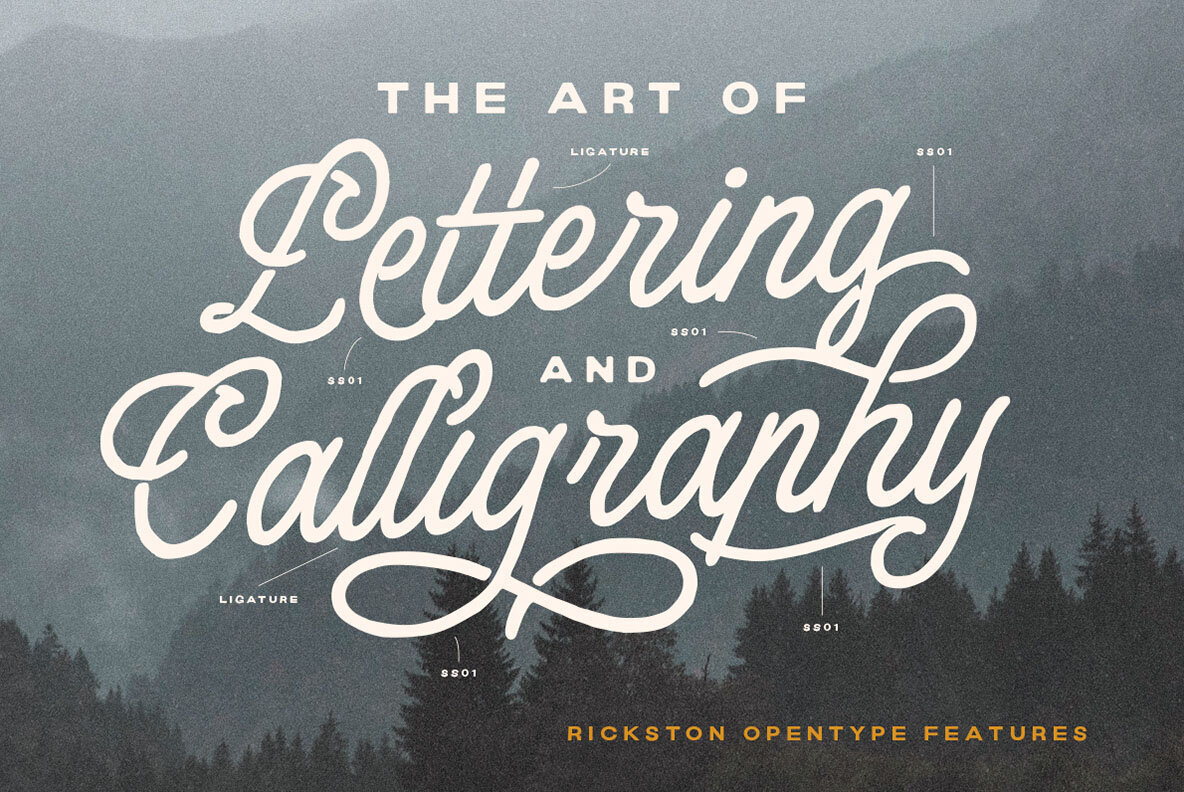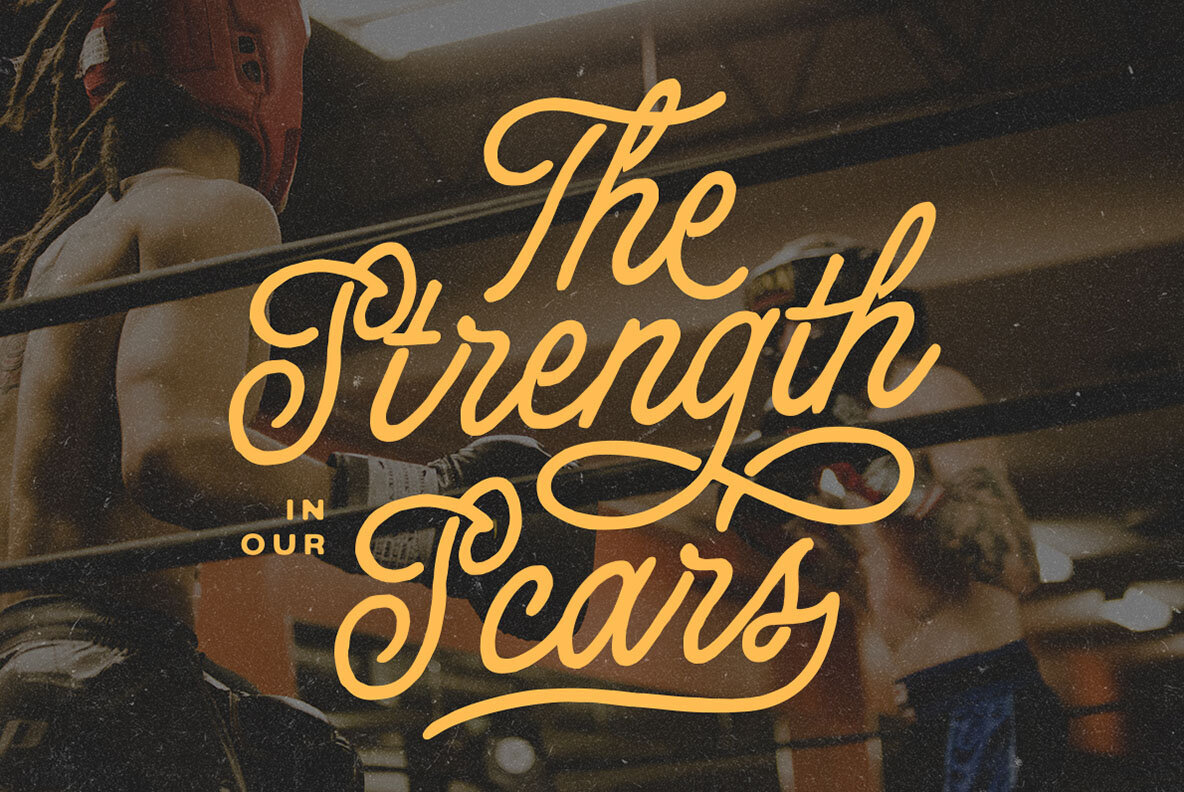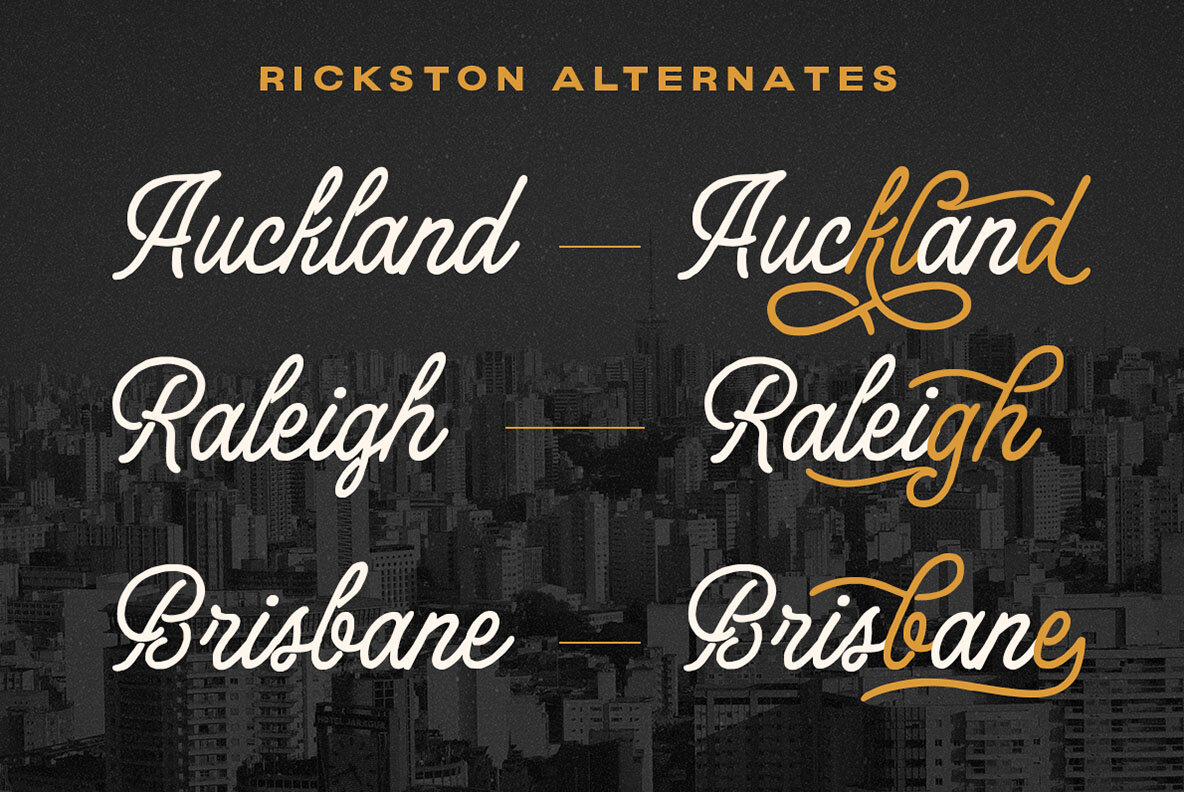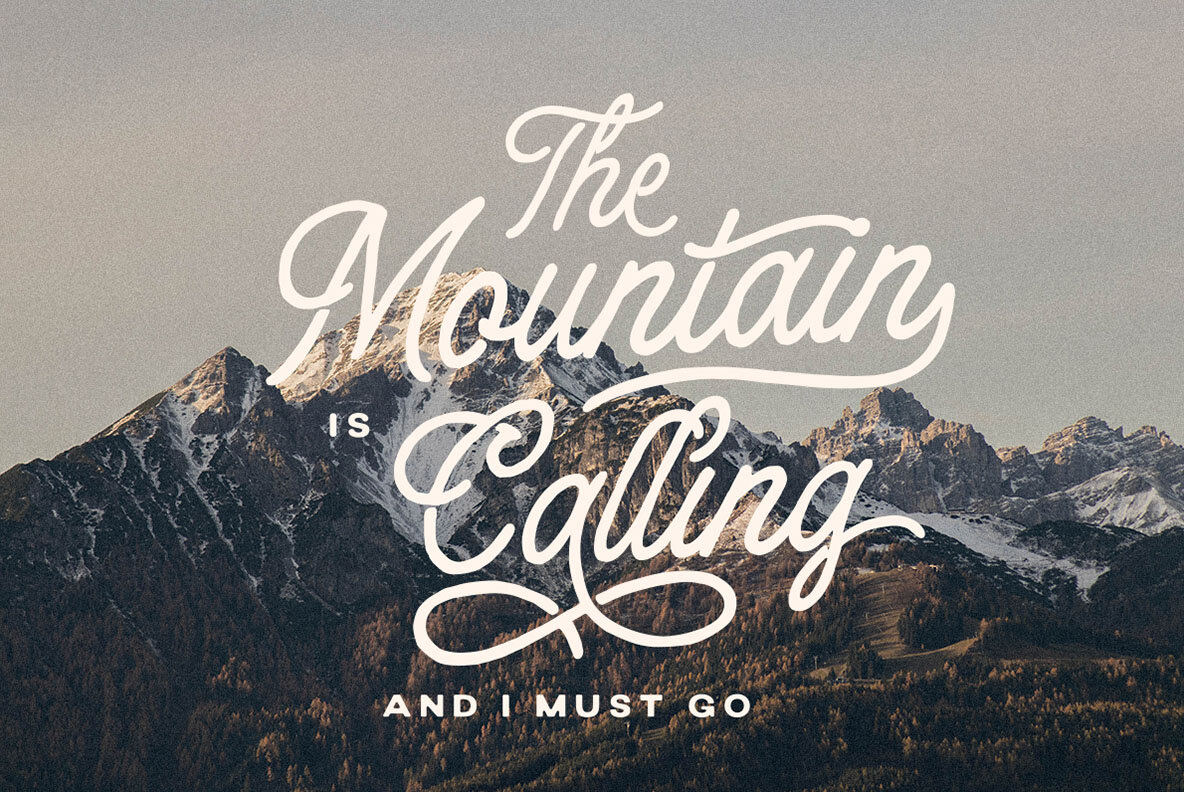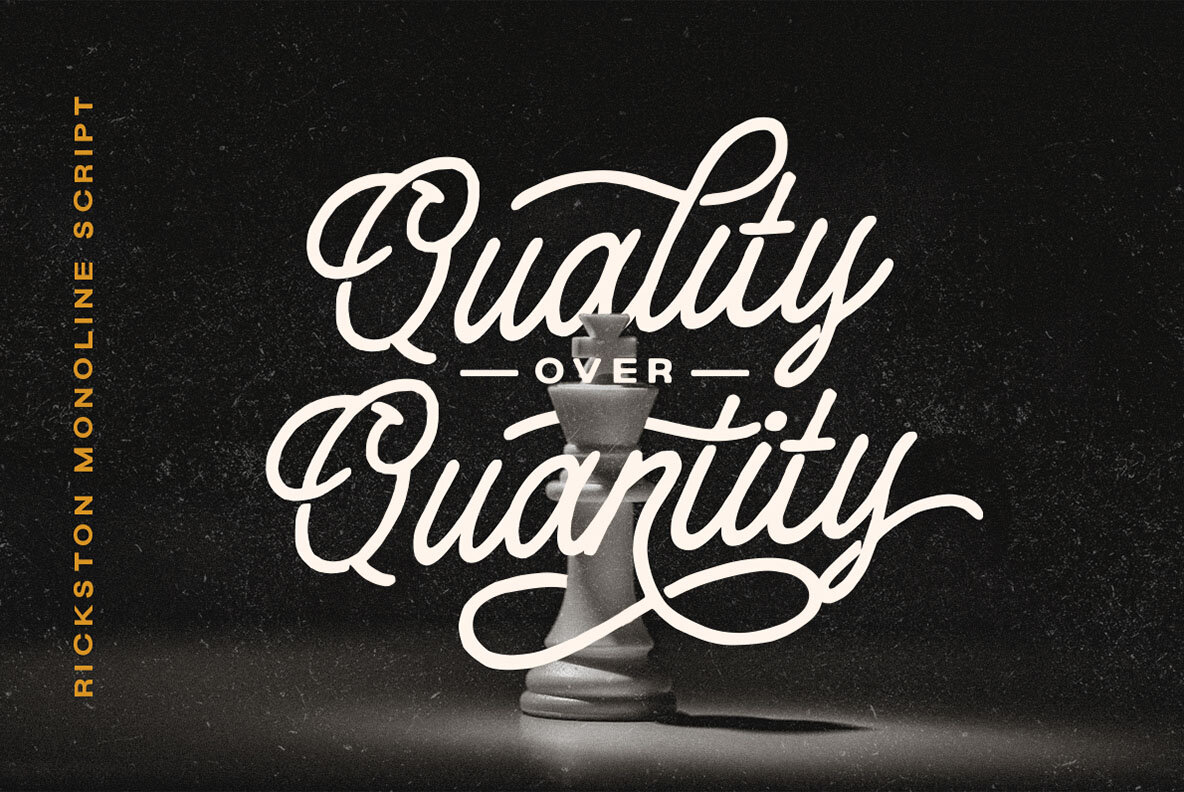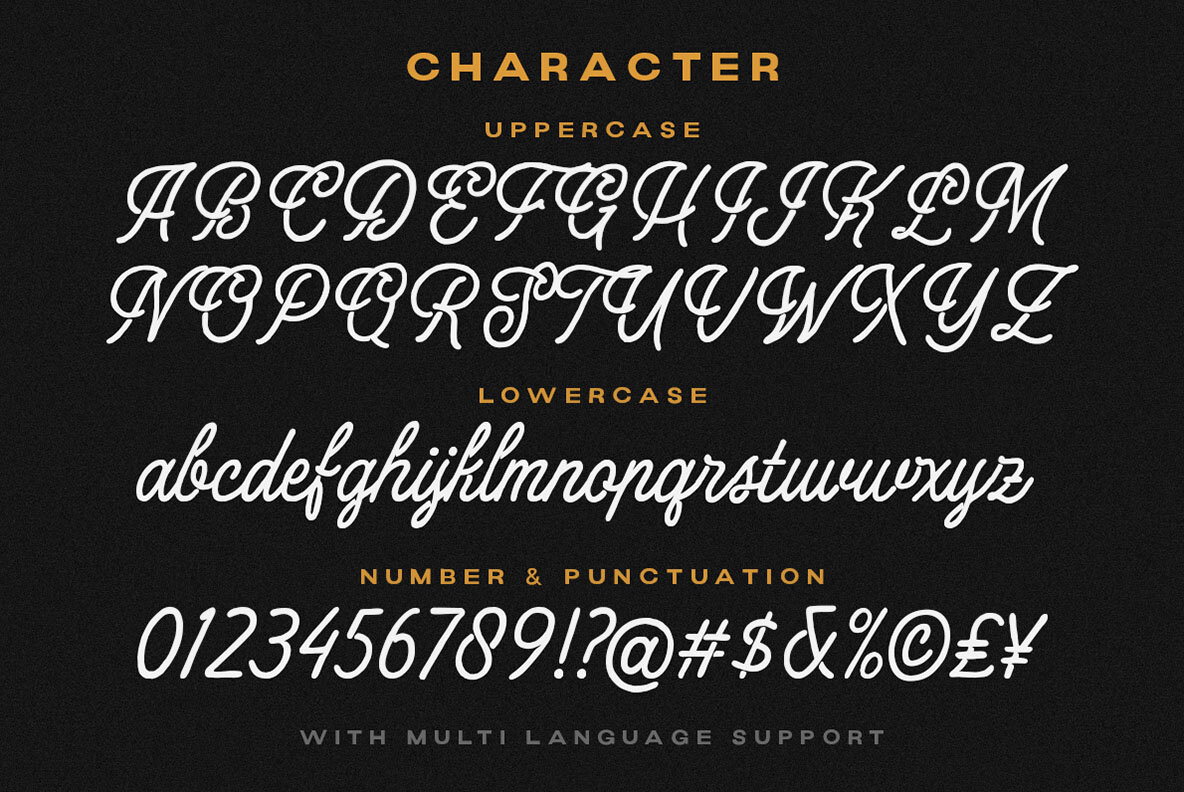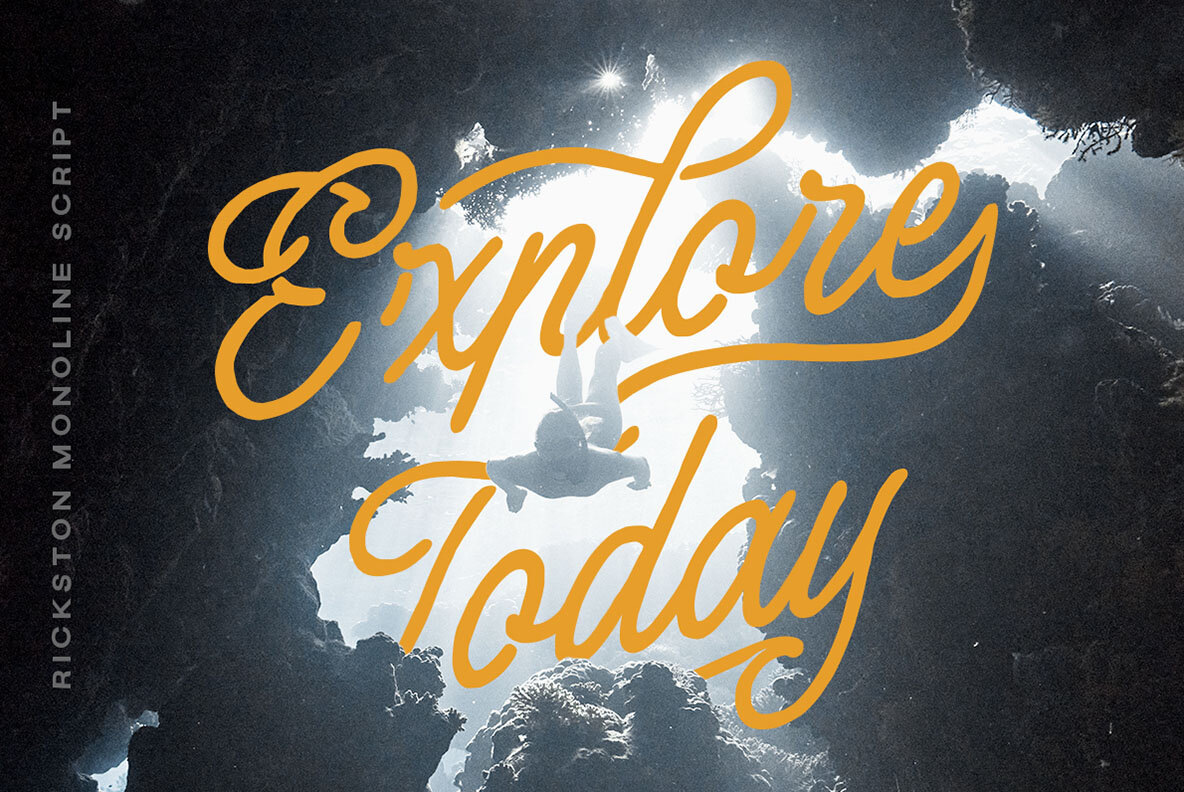
Rickstone Font
Rickston Regular
Rickstone is a meticulously crafted monoline script that offers a clean and casual aesthetic. It's an ideal choice for designs requiring a cool and refined look, particularly in logos, headlines, and signage. Additionally, it suits various formal applications such as invitations, labels, magazines, books, greeting and wedding cards, packaging, fashion, makeup, stationery, novels, labels, or any advertising purpose. We highly recommend using programs that support OpenType features and Glyphs panels, such as Adobe applications and Corel Draw, to explore all Glyph variations and optimize your design.Rickstone: Monoline Script for Versatile Design